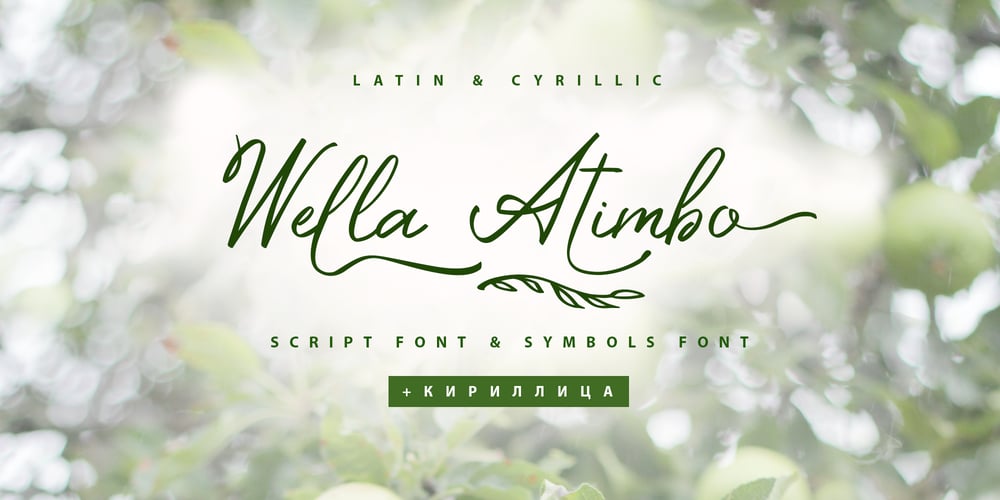
Wella Atimbo Cyrillic
Wella Atimbo Cyrillic font
Wella Atimbo Cyrillic Font Family was designed by Iryna Dviliuk and published by Ira Dvilyuk. Wella Atimbo Cyrillic contains 2 styles and family package options. The Wella Atimbo Cyrillic font is a handwritten calligraphic signature script font. It is the font pair with will be the best option for branding, logos, wedding invitations, social media, packaging, business cards, DIY projects, social media, and many others.